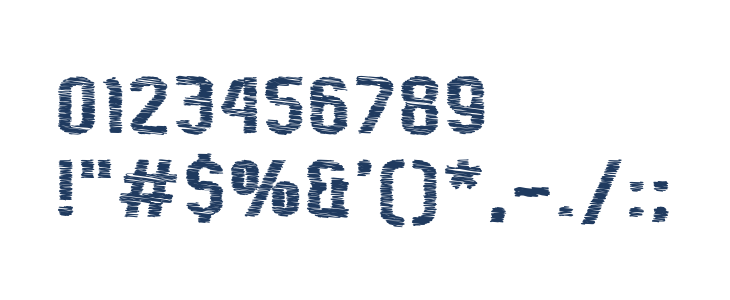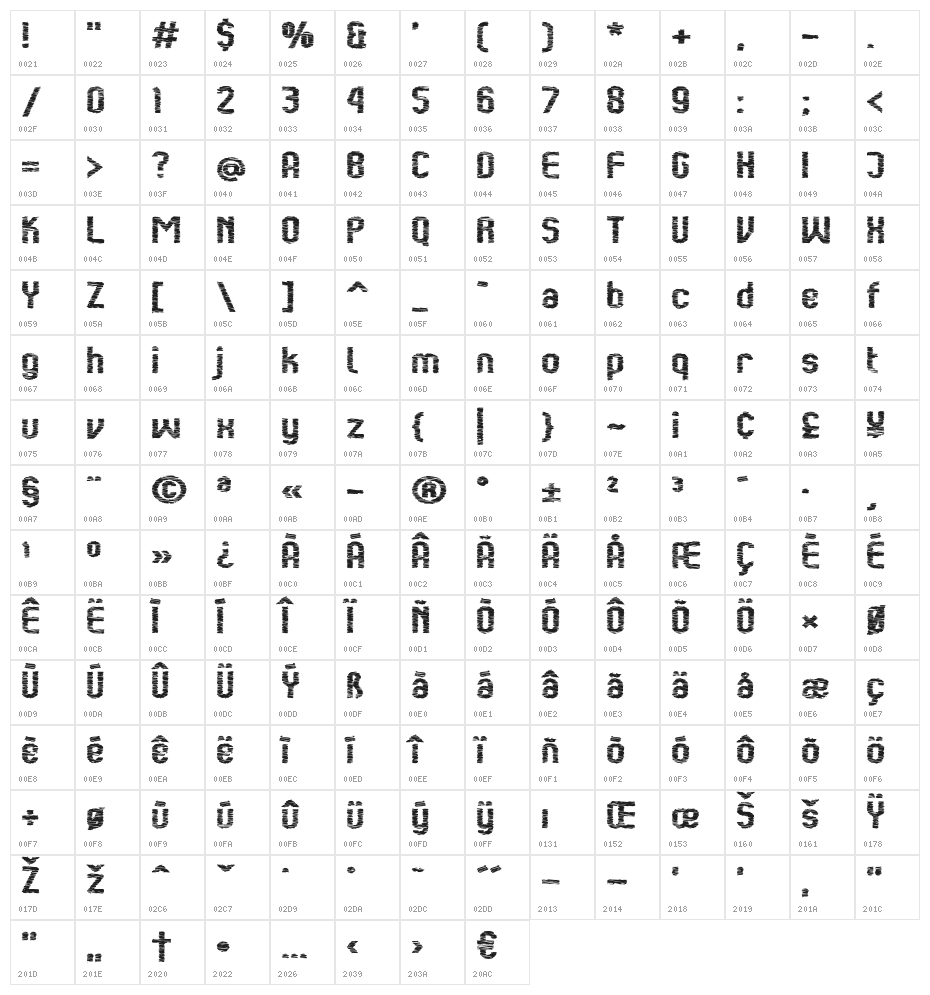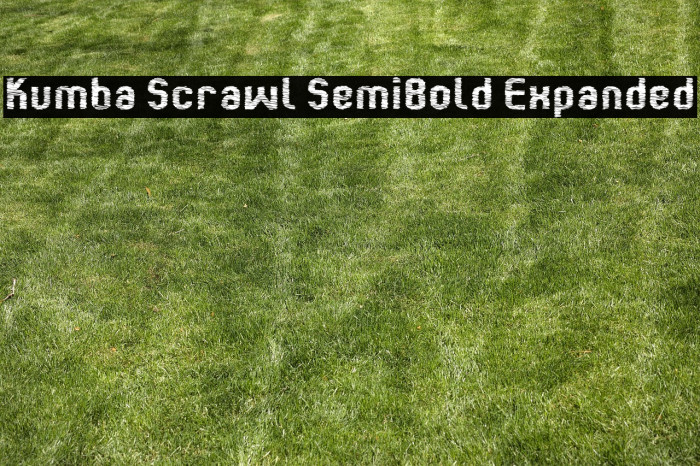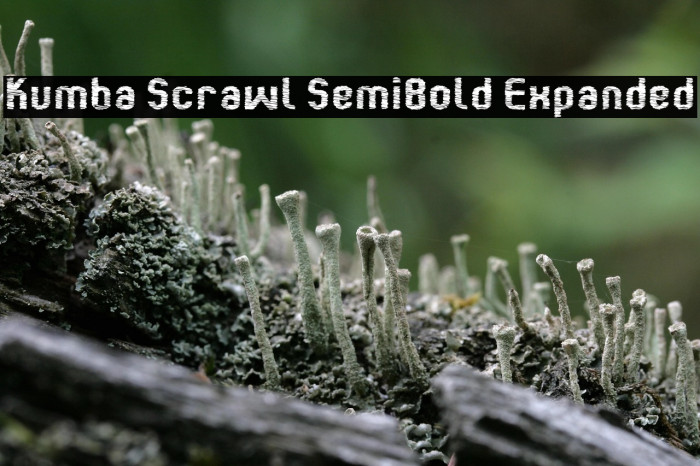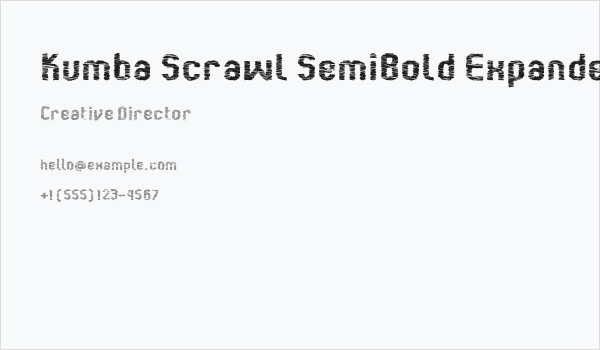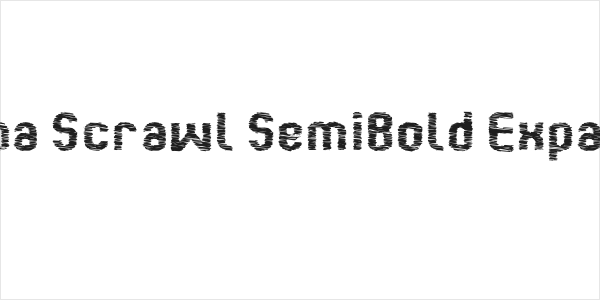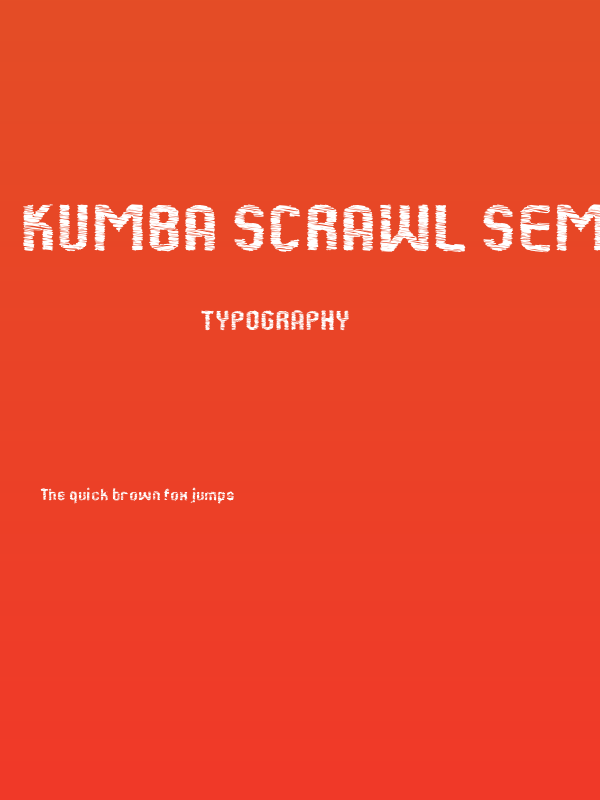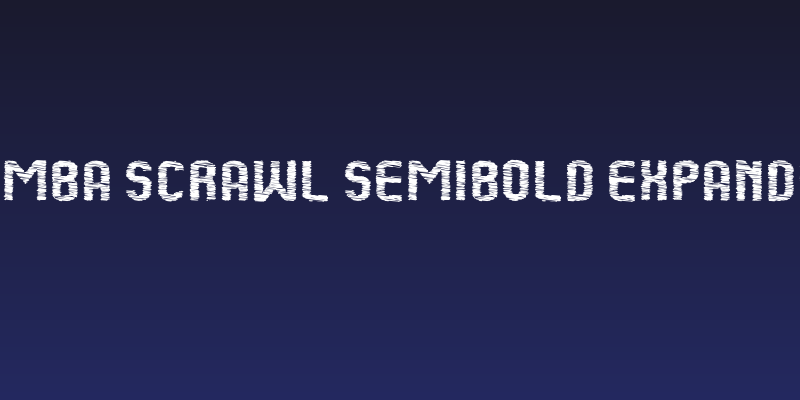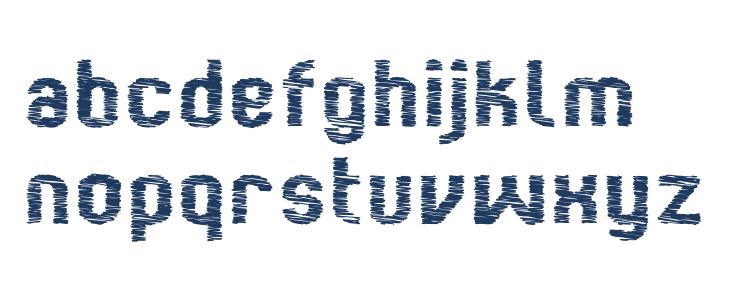
Kumba Scrawl SemiBold Expanded Font
Kumba Scrawl SemiBold Expanded Description
This font features a bold, hand-drawn style with a textured, scrawled appearance. The characters are semi-bold and have an expanded width, giving them a substantial presence. The strokes are uneven, mimicking a hand-drawn effect, which adds a unique, artistic flair. The uppercase and lowercase letters maintain a consistent style, with rounded edges and a slightly irregular baseline, enhancing the casual, informal look. The numerals and special characters follow the same design principles, ensuring uniformity across all glyphs. This font's distinctive style makes it stand out, perfect for projects that require a creative and unconventional touch.